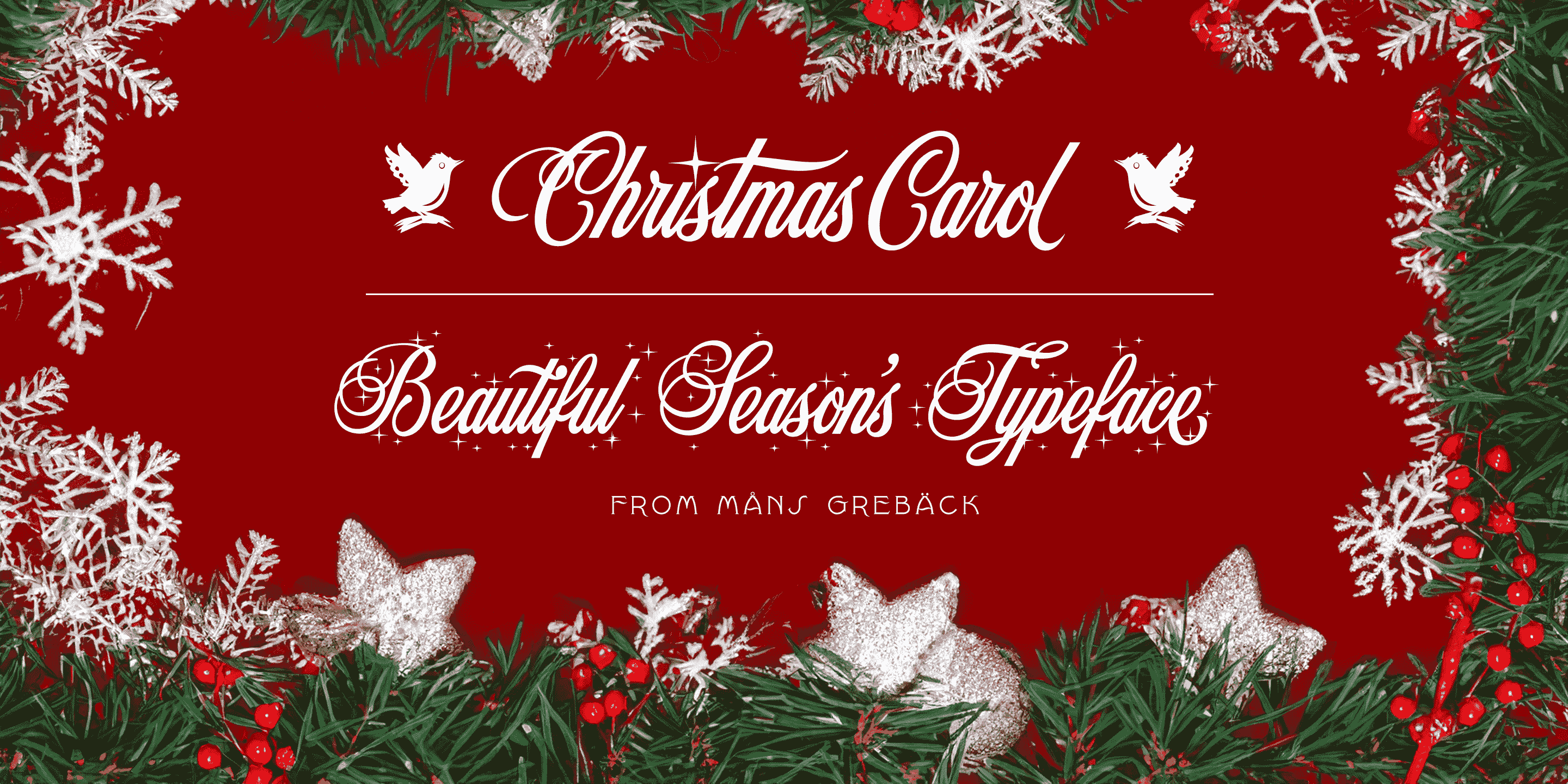
Ideal for holiday cards, invitations, seasonal branding, posters, and packaging, Christmas Carol Font Free Download adds warmth and cheer to any project.
What makes this font exciting is its playful, hand-lettered style with flowing curves that evoke the joy and nostalgia of Christmas celebrations.
The Christmas Carol font family includes Regular and Bold styles, providing options to create dynamic and engaging holiday-themed typography.
If you want to bring festive magic and a cozy vibe to your designs, Christmas Carol Font Free Download is the perfect choice. Download it today, explore its joyful character, and make your holiday projects shine bright.